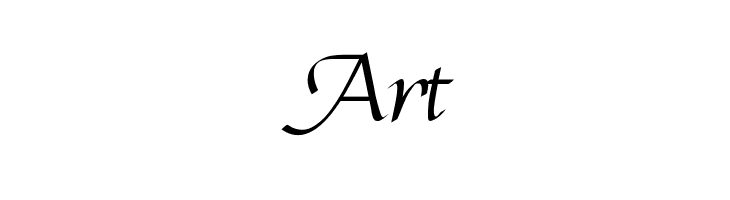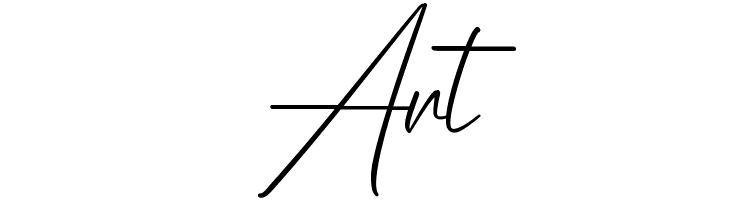
A playful, bold font with rounded edges and a bubbly appearance.
A playful, modern outline font with bold, rounded letterforms.
Expressive, bold handwritten script with brush-like strokes.
A bold, distressed font with a vintage, rugged appearance.
A bold, angular serif font with a modern yet classic appeal.
Playful, hand-drawn sans-serif with a festive, casual style.
An elegant, cursive font with fluid, interconnected letters and a sophisticated style.
A bold, gothic-inspired font with sharp, angular lines.
A decorative and whimsical font with intricate geometric shapes and sharp edges.
A bold, dynamic script font with fluid, connected letterforms.
A modern, handwritten font with elegant, flowing lines and a cursive-like appearance.
A playful, rounded, and bold font with a handwritten feel.
A playful, handwritten script font with bold, smooth curves and moderate contrast.
A bold, fluid script font with a modern, artistic flair.
A lively script font with elegant, flowing letterforms and artistic flair.
A modern, rounded sans-serif font with a clean and approachable style.
A modern, elegant font with high contrast and refined details.
A whimsical and flowing script font with elegant, fluid letterforms.
A bold, stencil-like font with a military-inspired design.
A playful, handwritten font with smooth, flowing lines and a casual style.
A playful, cow-patterned decorative font with bold, rounded characters.
A playful, bold font with rounded, hand-drawn characters.
A playful, rounded typeface with smooth curves and a friendly appearance.
A playful, rounded font with smooth, bold strokes and a friendly appearance.
A bold, expressive handwritten font with playful loops and curves.
A playful, handwritten font with smooth, rounded strokes and tight spacing.
A bold, modern font with thick strokes and strong visual impact.
A bold, expressive script font with a playful, handwritten style.
A bold, retro-inspired font with a playful, bubbly style.
A playful, handwritten cursive font with smooth, connected strokes.
A bold, pixelated font ideal for retro and digital-themed projects.
A playful, casual handwritten font with smooth, flowing curves.